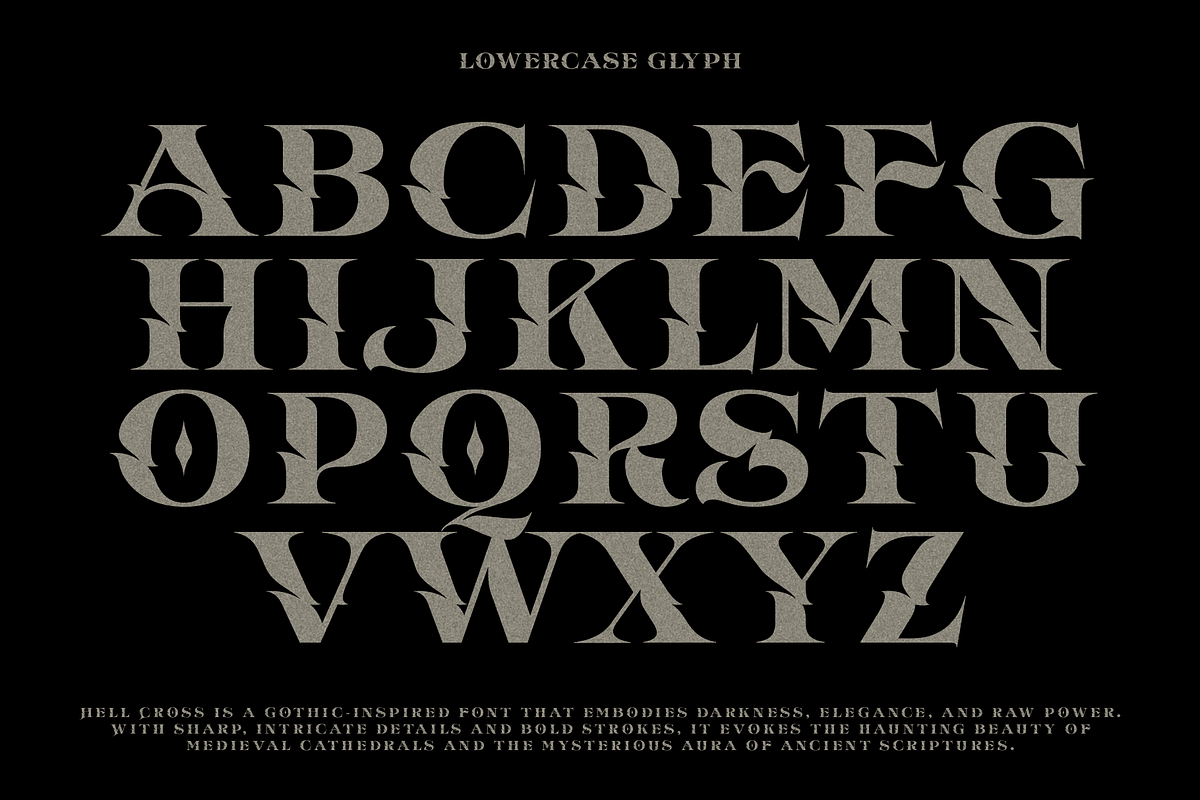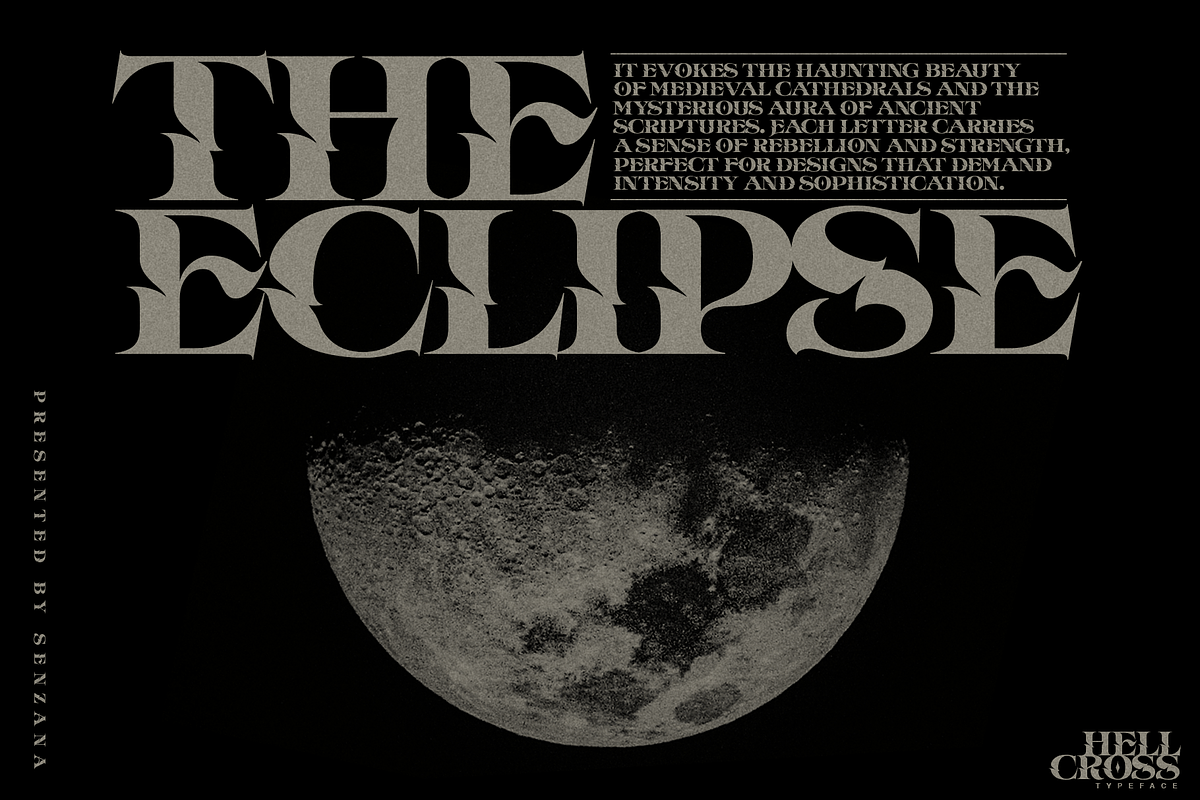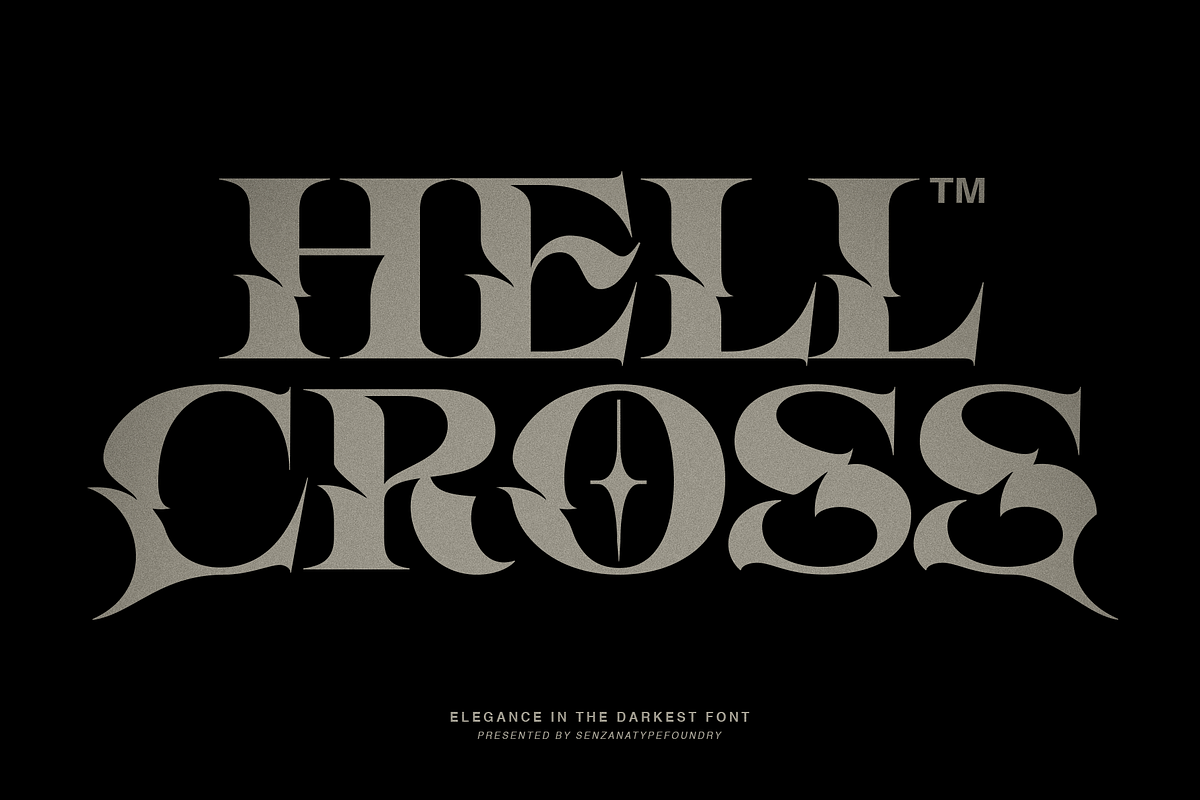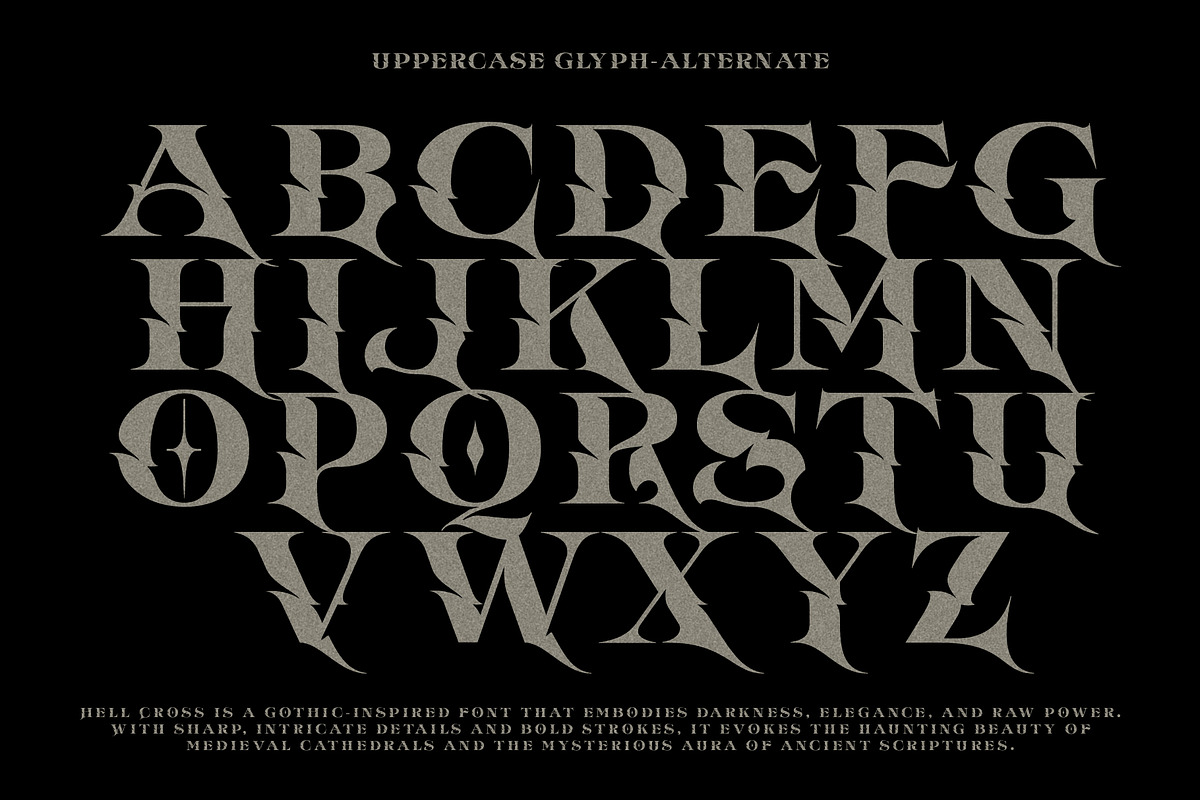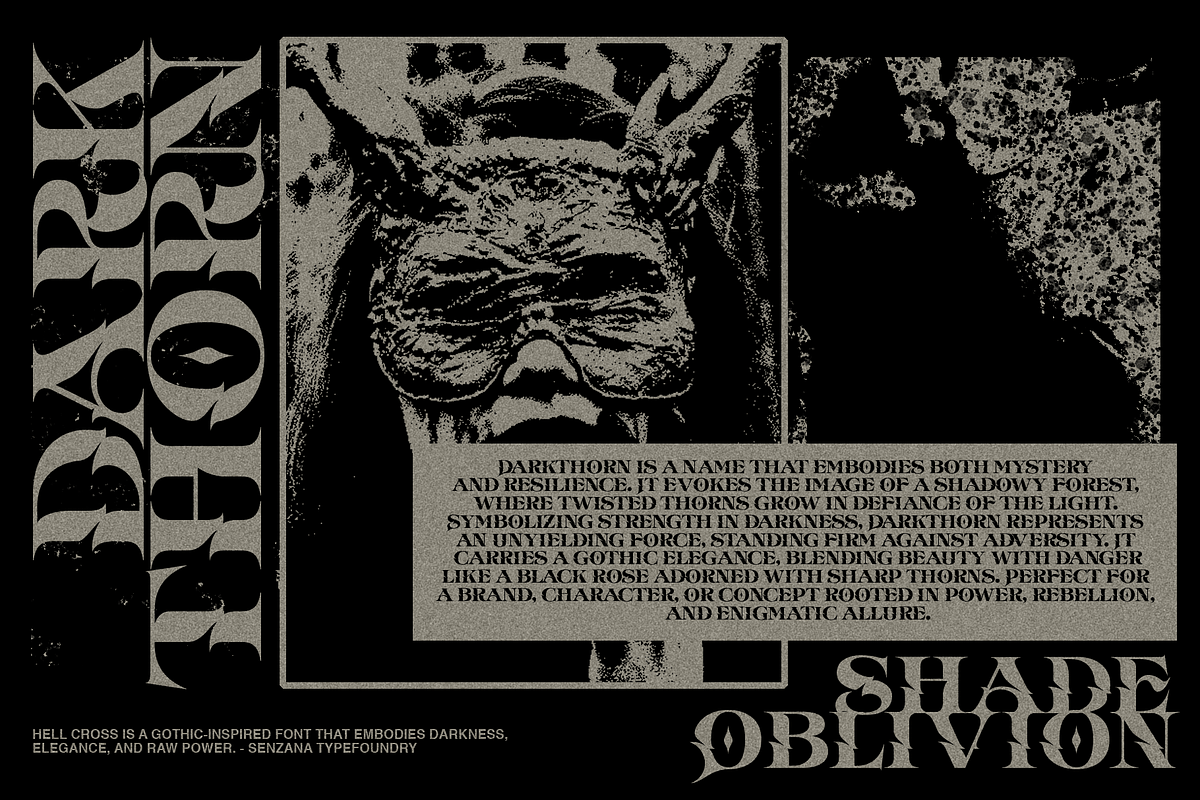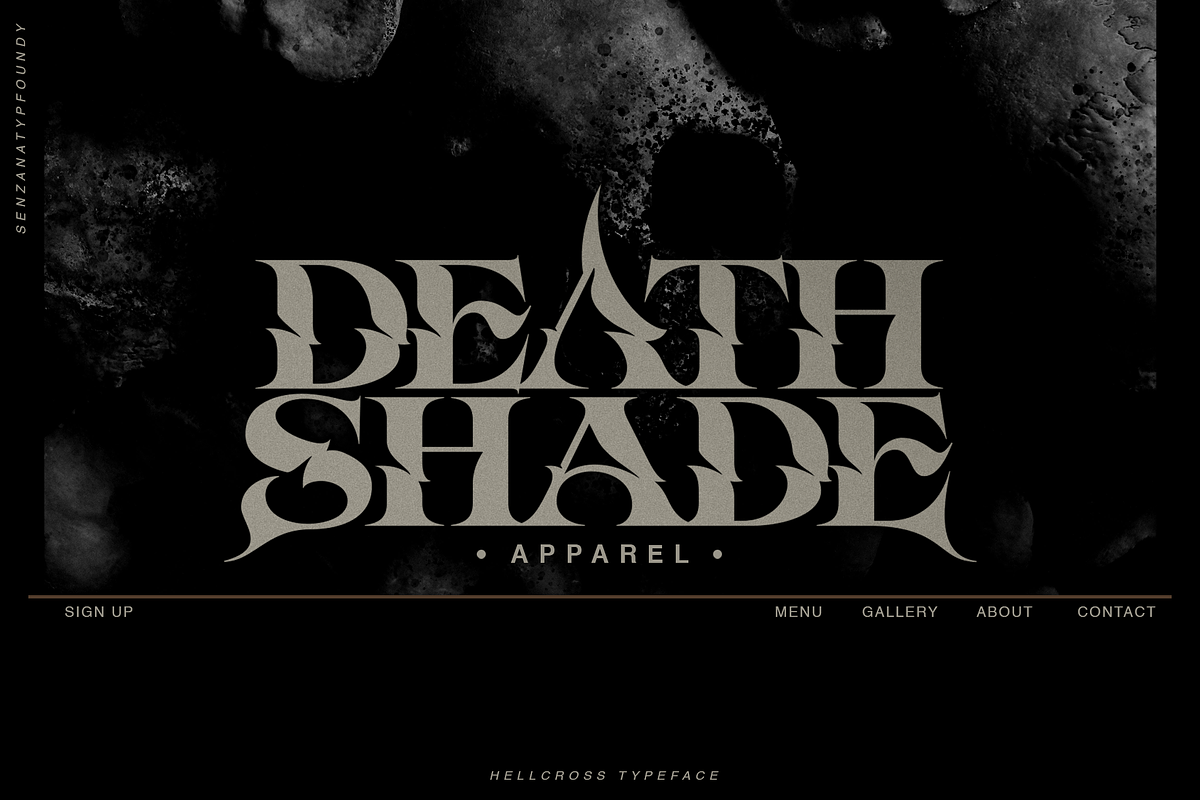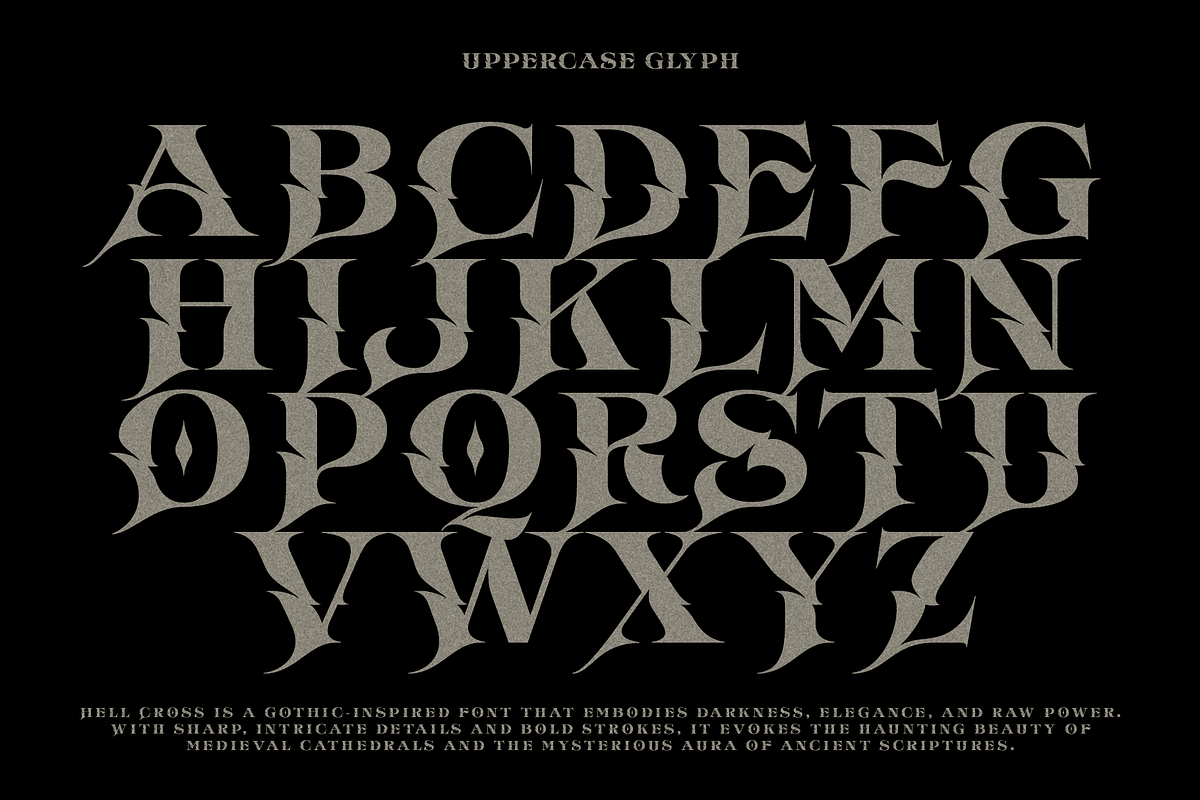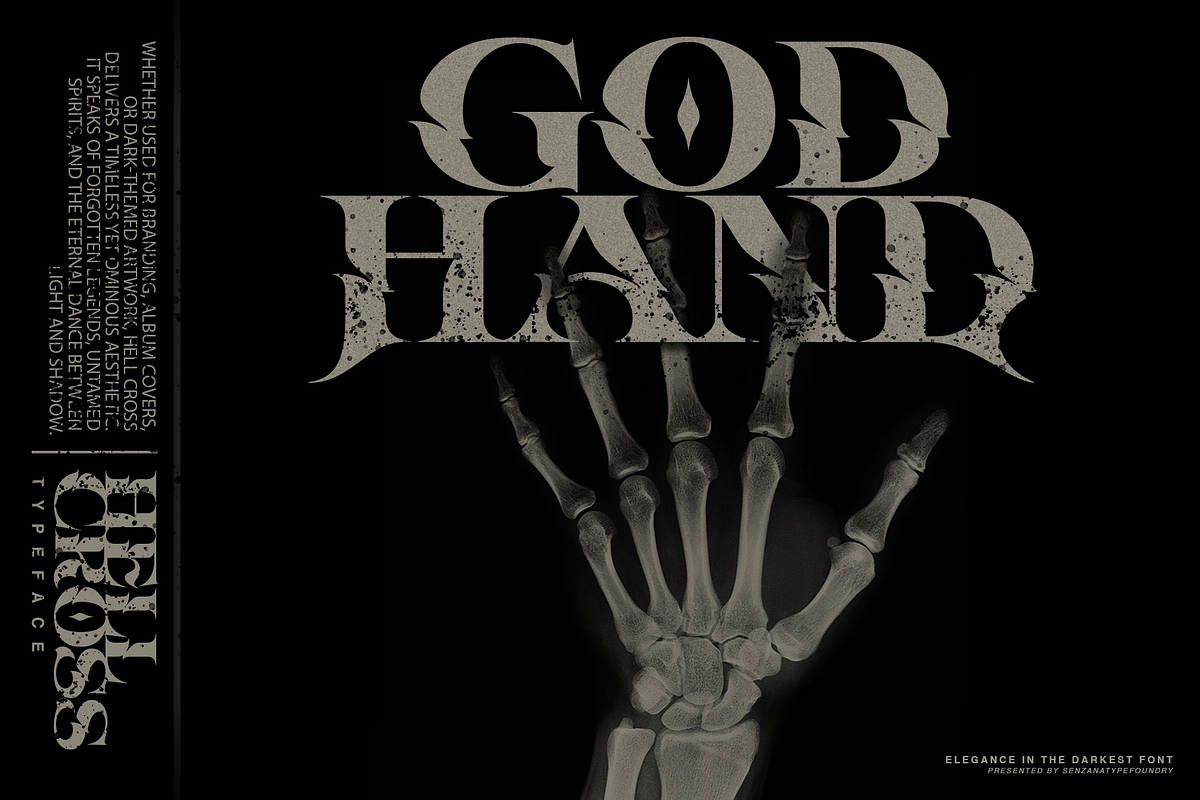
Hell Cross
HellCrossl is a bold and striking gothic font that embodies the essence of dark elegance, mystery, and power. With its sharp edges, intricate details, and heavy strokes, HellCrossevokes the spirit of medieval art and classic gothic aesthetics.
The font's dramatic, angular forms and bold presence make it perfect for creating eye-catching headlines, logos, posters, and album covers. Whether used in metal band designs, gothic-themed projects, or vintage horror aesthetics, HellCrossbrings intensity and character to every design it touches.
Despite its strong and edgy vibe, HellCross maintains readability, striking a balance between artistic flair and functional design. Its versatility allows it to complement both modern and traditional gothic themes.
In essence, HellCross is a font that demands attention, making a bold statement with every letter—dark, daring, and unforgettable.